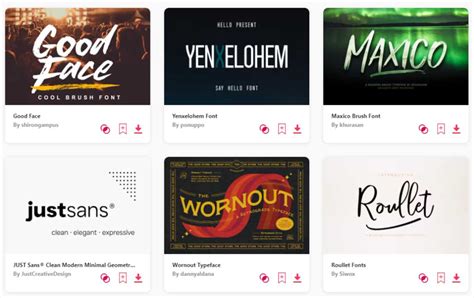
Unlock the Perfect Font for Your Design with Envato Fonts!
What Are Envato Fonts?
Envato Fonts is a stunning library of fonts that you can use to give your design projects a professional and unique look. It is a part of the Envato Elements subscription, which gives you unlimited access to thousands of fonts from a diverse range of designers. You can use any of these fonts in your designs, for both personal and commercial use. With Envato Fonts, you can easily find the perfect font for your design project.
The Benefits of Envato Fonts
Envato Fonts is an incredibly valuable resource for designers. It has a vast selection of fonts, which makes it easy to find the perfect font for any project. The fonts are all of high-quality, so they look great in any design. Additionally, the fonts are all royalty-free, so you don't have to worry about any copyright issues. The fonts are also well-organized and easy to search, so you can quickly find the font that you need.
The Variety of Fonts Available
Envato Fonts has a huge selection of fonts that you can choose from. There are fonts in a variety of styles, from classic serifs to modern sans serifs. You can also find fonts in a variety of weights, from light to bold. Additionally, there are a variety of script fonts and decorative fonts that you can use to give your design a unique look. Whatever font you need, you can find it in the Envato Fonts library.
The Quality of Envato Fonts
Envato Fonts is dedicated to providing high-quality fonts that look great in any design. The fonts are all designed by experienced designers, so they look professional and have a high level of detail. Additionally, all of the fonts are tested for clarity and legibility, so they are easy to read. This ensures that your design projects always look their best.
How to Find the Perfect Font for Your Design
Envato Fonts makes it easy to find the perfect font for your design project. You can search for fonts by keyword, font style, or designer. You can also browse the library of fonts to find the font that you need. Additionally, you can preview the fonts before you download them, so you can make sure that they are the right fit for your design.
Example of Unlocked Perfect Font for Design with Envato Fonts!
For example, if you are looking for a modern, minimalist font for your design project, you can use the Montserrat font. This font is a classic sans serif font with a modern twist. It is clear and legible, and it has a minimalist look that makes it perfect for a variety of design projects. With Envato Fonts, you can easily find the perfect font for your design project.
My Point of View
I think that Envato Fonts is a great resource for designers. It has a huge selection of fonts that you can use for any project. The fonts are all of high-quality and easy to use, so you don't have to worry about any copyright issues. Additionally, the fonts are well-organized and easy to search, so you can quickly find the font that you need. I highly recommend Envato Fonts for any designer who is looking for a professional, high-quality font.